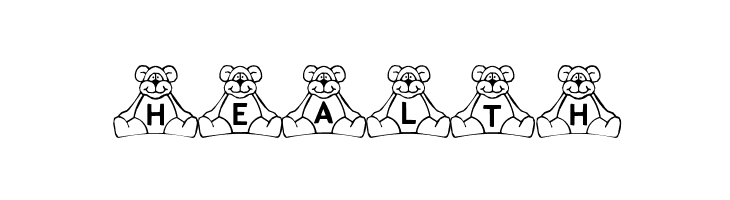
( Fonts by Loraine Wauer Ferus www.billybear4kids.com )
A playful font with characters embedded in teddy bear designs, perfect for children's projects.